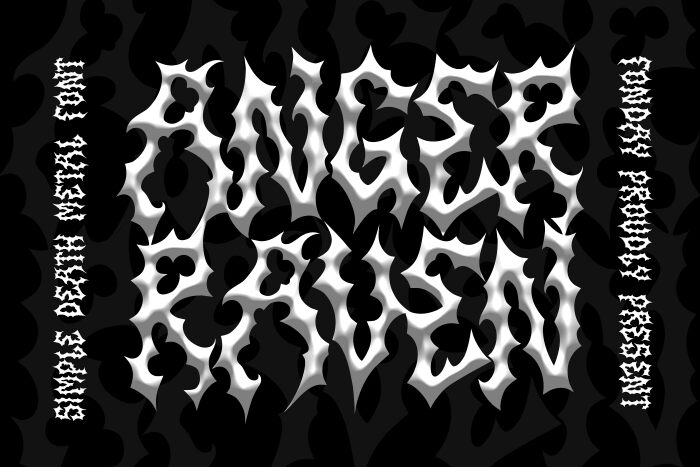
Anger Raven font by Fondaystudio is a modern gothic typeface with an intense and edgy style. Its decorative characters have an elaborate touch to them elevated by sharp angles and captivating endings. This free font is perfect for projects that require the intensity of the modern gothic aesthetic in both printed and digital works.
Use Anger Raven by Fondaystudio in tattoos, graphics, social media accounts posts, printed posters, magazines, short texts such as titles, headings, or slogans. Typographic T-shirts are just another idea where this display font will shine as well as album covers or movie posters.
Anger Raven